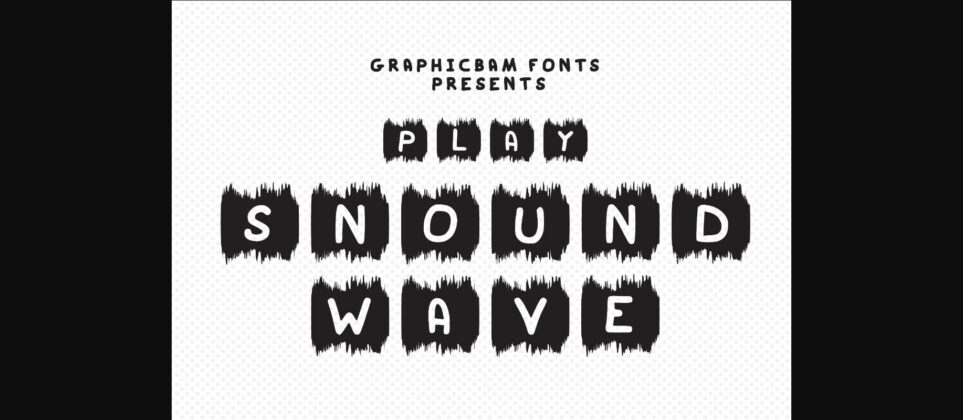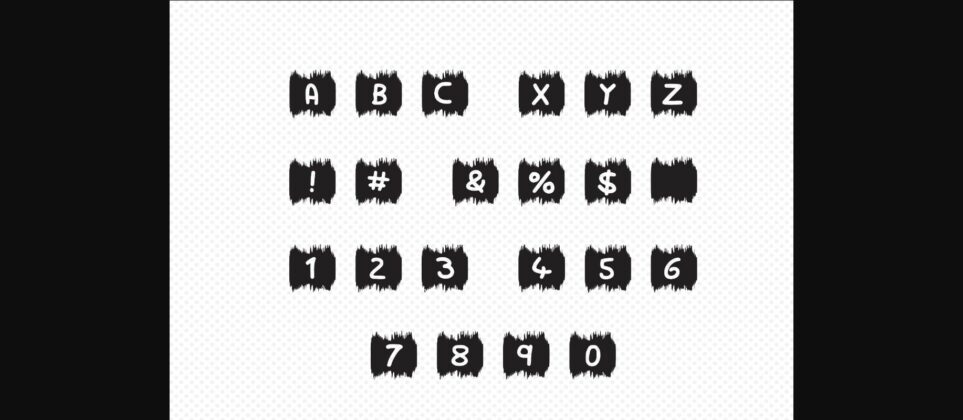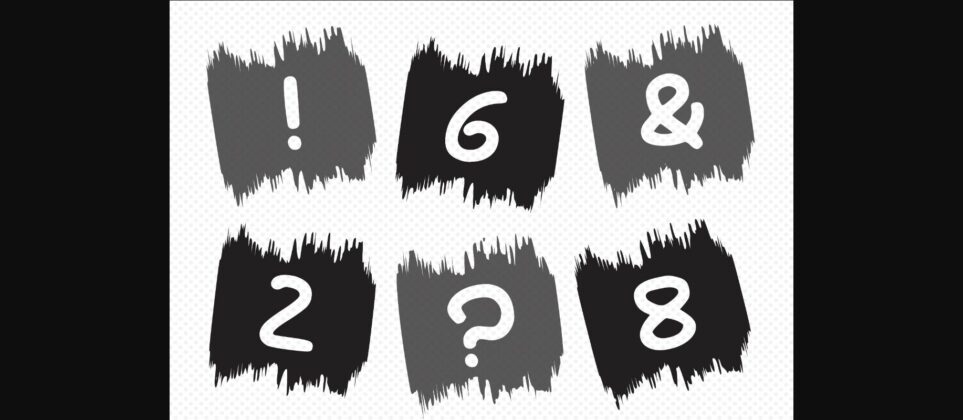
Play Sound Wave Font
About Play Sound Wave Font
Play Sound Wave is a cool and modern decorative font. It is the perfect choice for many projects related to music, songs, instruments, school, or anything else.